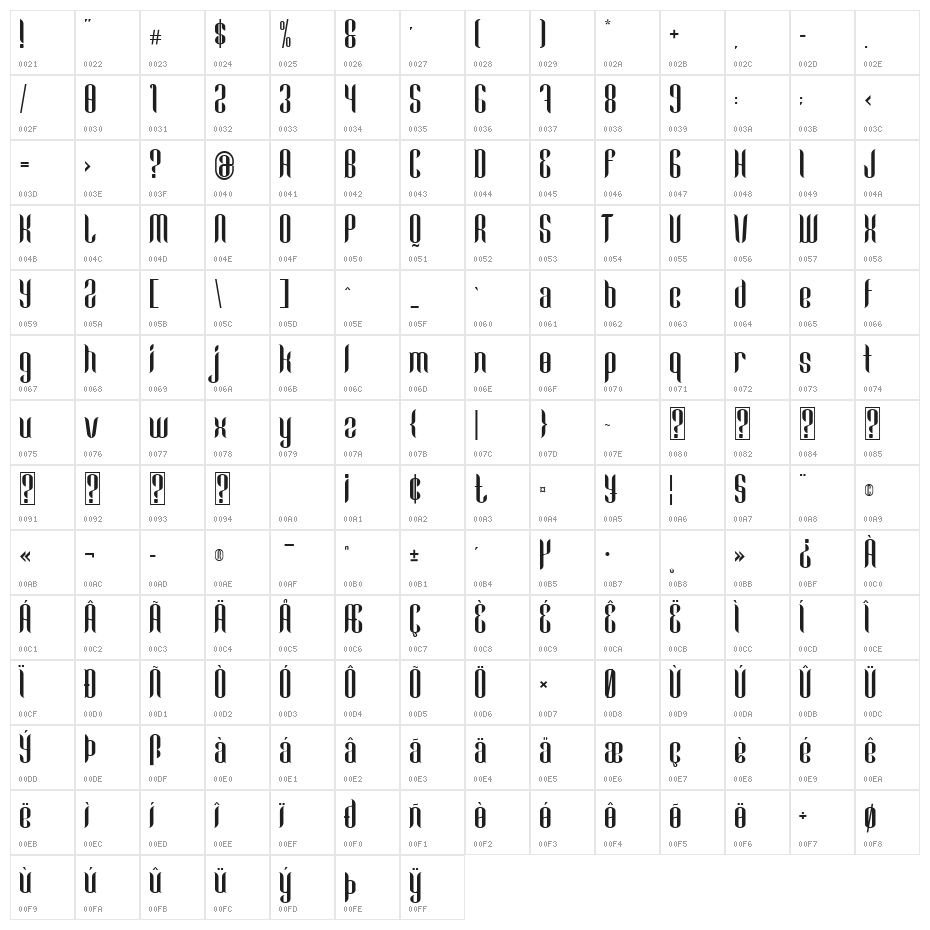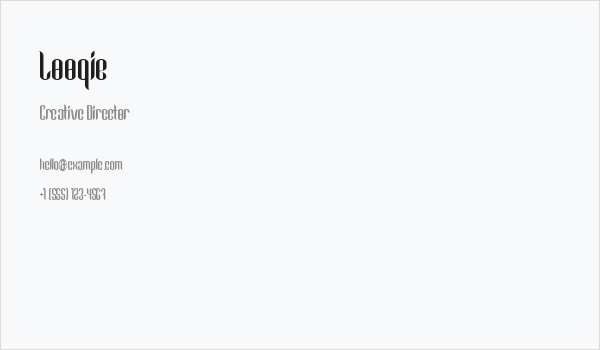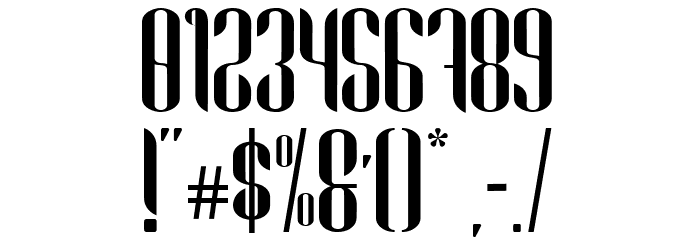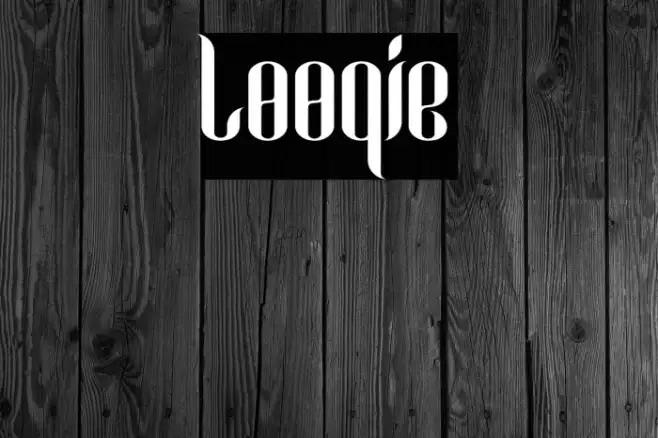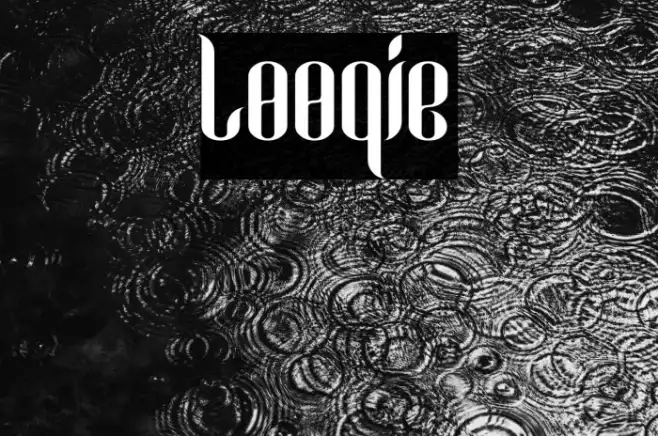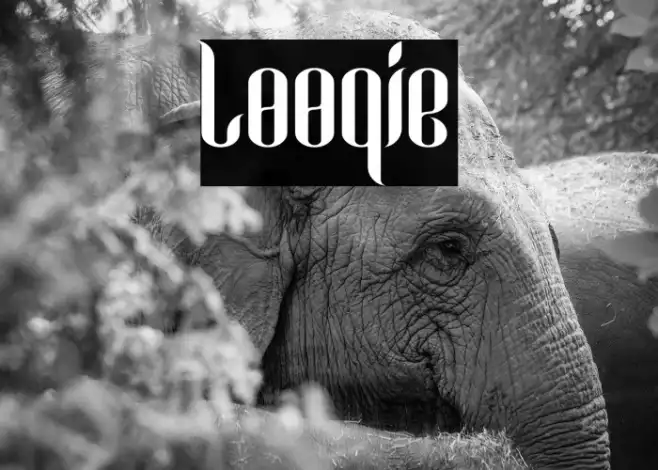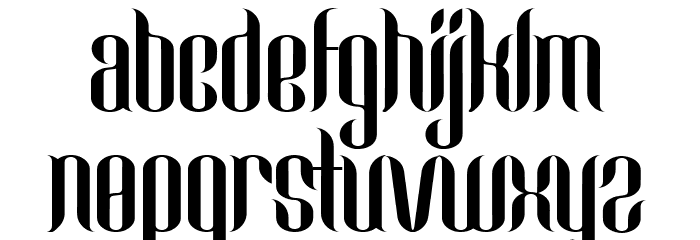
Looqie Font
Looqie Description
This font features a striking and bold design with elongated vertical strokes and sharp, angular serifs. The characters exhibit a high contrast between thick and thin lines, creating a dramatic and eye-catching appearance. The uppercase letters are particularly tall and narrow, while the lowercase letters maintain a consistent style with slightly more rounded edges. The numbers and special characters are designed to match the overall aesthetic, ensuring a cohesive look across all text. This font's unique style is both modern and reminiscent of classic calligraphy, making it versatile for various design applications.